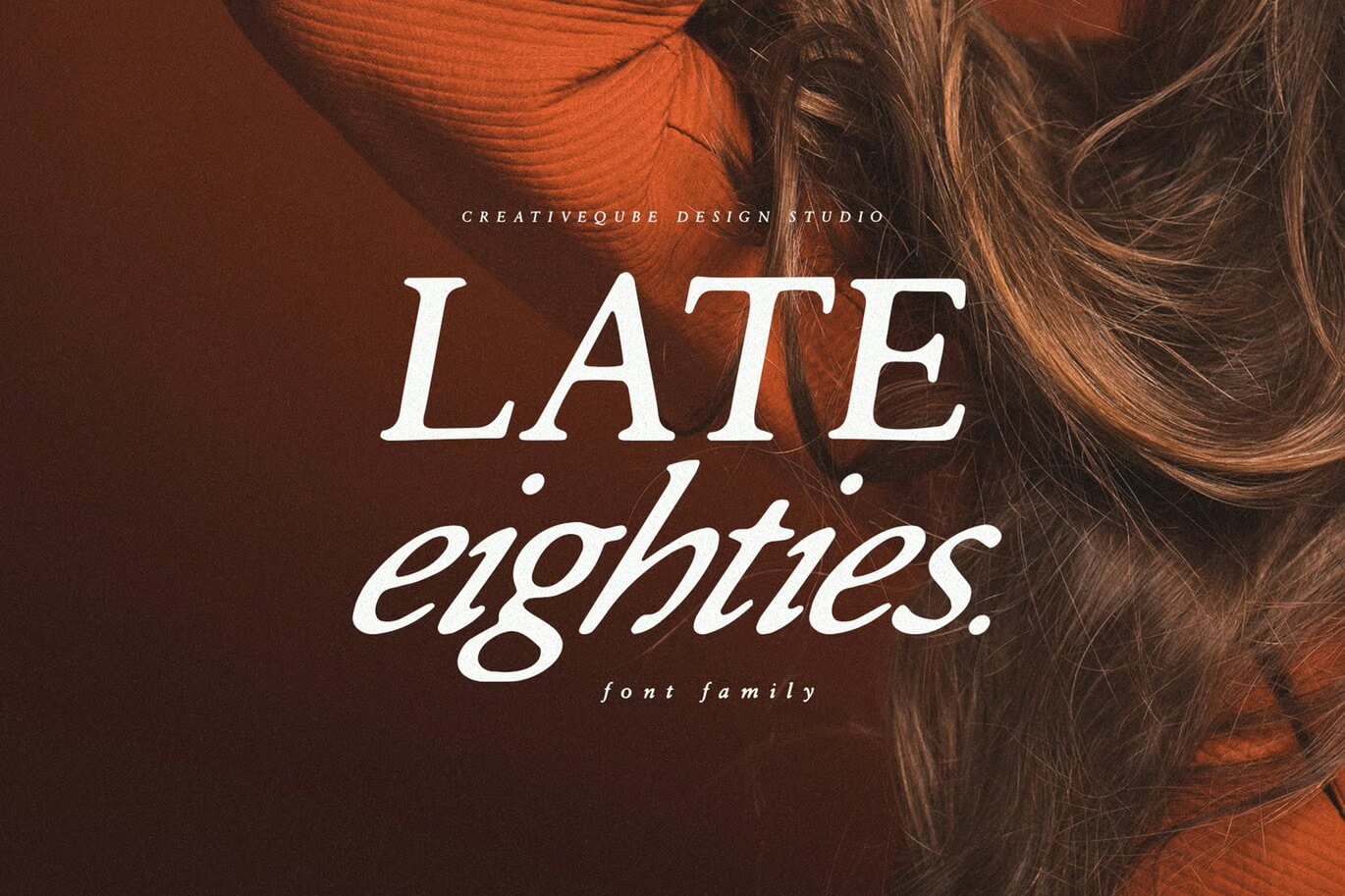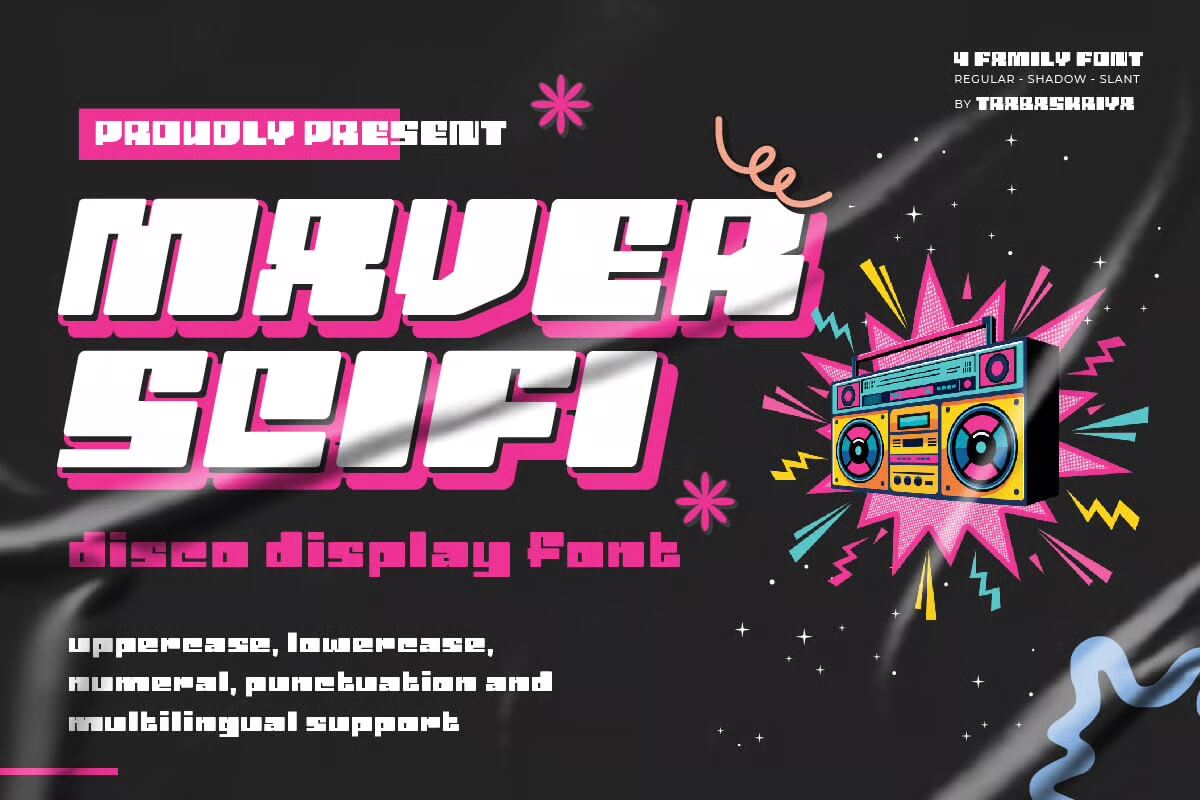
7+ Fonts of the 80s
If you have ever stared at a poster, album cover, or old magazine from the 1980s and felt that instant pull, you already understand the power of an 80s font.
There is something about that era that feels fearless, loud, and oddly comforting at the same time.
This article is worth reading if you want to understand how to choose the right font, where that iconic look comes from, and how to use it today without making your project feel dated or gimmicky.
We are going to talk about style, history, and practical ways to use these fonts so they actually work.
Why does an 80s font still feel so powerful today
Retro-themed image with bold white text "7+ Fonts of the 80s" over a colorful sunset gradient and grid, starry night sky background.
A good font from the 80s carries emotion before you even read the text. It taps straight into nostalgia and memory. That decade was visually confident.
Everything was turned up. Colors were louder, shapes were bigger, and rules were bent without apology.
What makes this era interesting is how it balanced excess with identity. A single font could define a whole project.
Think about how music albums, movie posters, and even sport branding relied on strong letterforms to make a statement. That influence still shows up today because designers want the same confidence and clarity.
Using an 80s font today is less about copying the past and more about borrowing that energy. When done right, it can inspire a modern audience while still feeling familiar and fun.
Top Fonts of the 80’s
The Retro Eighties
Colorful retro-themed graphic with "The Retro Eighties" text, featuring playful, smiling sun and flower characters, and star accents. Vintage design style.
The Retro Eighties font instantly takes you back to the fun, colorful vibe of the 1980s. It’s bold, bubbly, and full of personality, perfect for posters, packaging, or anything that needs a playful nostalgic touch with a cheerful retro twist.
Late Eighties Font & Florals
A person with long hair appears beside the text "LATE eighties." The background is brown. It's a design by Creativeqube Design Studio.
Late Eighties has that perfect blend of vintage charm and modern polish. It feels classy yet relaxed, making it ideal for logos, wedding invites, or even Instagram quotes. With its elegant serif style and multiple variations, it adds instant personality to any design.
Binary Groove
Retro 80s-inspired typeface with the text "Binary Groove" in bold colors. Vintage cars and palm trees create a nostalgic sunset scene.
Binary Groove instantly gives off that cool 80s vibe with its bold shapes and futuristic flair. It feels both techy and fun, perfect for projects that need energy and attitude. I love how it balances sharp edges with smooth curves for a modern retro look.
Heatwave Typeface
Neon text "Heatwave" glows above a dimly lit high-rise building with illuminated windows, set against a dark, moody night backdrop.
Heatwave feels like it just stepped out of an 80s music video, all bold energy and neon vibes. It’s got that hand-painted brush look that screams retro cool, perfect for logos, posters, or anything that needs a hit of nostalgic attitude.
Maver Scifi – Retro Disco Font
Bold retro font design for "Maver SciFi" with colorful boombox illustration. Describes a disco display font supporting multiple languages and punctuation.
Maver Scifi feels like a blast from the disco era with a futuristic twist. It’s bold, playful, and full of energy, perfect for designs that need to pop. Think neon lights, dance floors, and a fun retro vibe that instantly grabs attention.
Retrolined Synthwave 80s Retro Font
A vibrant, 1980s retro-themed image with neon colors, featuring sunglasses, a belt, and the text "RETRONLINED" in a bold, stylized font.
Retrolined is a bold and playful 80s inspired font that instantly gives off those neon synthwave vibes. Its chunky letters with cool line details make it perfect for posters, album covers, or anything that needs a hit of retro energy and fun.
Miami Beat – A Retro Multiline Font
Neon pink and purple retro poster with palm trees, showcasing "Miami Beat" font by Type Factory, evoking an 80s aesthetic.
Miami Beat instantly gives off that nostalgic summer vibe with its neon glow and retro lines. It feels like cruising down a palm-lined boulevard at sunset. Perfect for branding, posters, or anything that needs a splash of cool, vintage energy.
Komix Eighties
Bold, cartoon-style "Komix Eighties" text in a black, speech bubble design on a bright yellow background, highlighting a fun, comical typeface.
Komix Eighties has that playful, comic book vibe that instantly lifts your design. It feels fun, bold, and full of personality, perfect for projects that need a splash of color and energy. It’s cheerful, nostalgic, and just the right amount of quirky.
The appeal of an 80s font goes beyond visuals. It represents confidence, experimentation, and joy. That is why designers keep coming back to it decade after decade.
Whether you are working on a poster, branding project, or creative idea, these fonts offer a rich source of inspiration. They remind us that design can be expressive and fun without losing clarity.
When you approach them with intention, they become timeless rather than dated.